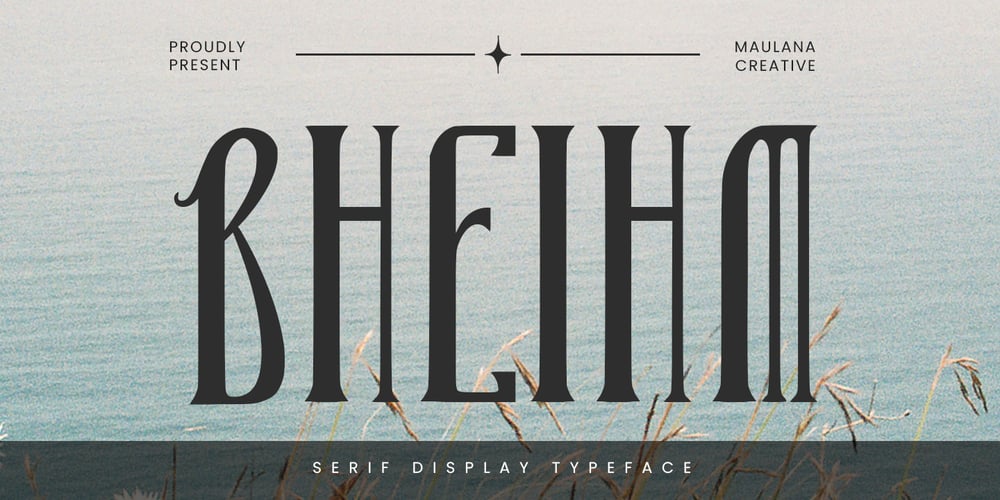
MC Bheihm
MC Bheihm font
MC Bheihm Font Family was designed by Gilang Maulana and published by Maulana Creative. MC Bheihm contains 1 styles and family package options. Bheihm decorative display font. Heavy stroke, fun character with a bit of ligatures. To give you an extra creative work. Bheihm decorative display font support multilingual more than 100+ language. This font is good for logo design, Social media, Movie Titles, Books Titles, a short text even a long text letter and good for your secondary text font with script or serif. Make a stunning work with Bheihm decorative display font.–UppercaseCheers,Maulana Creative